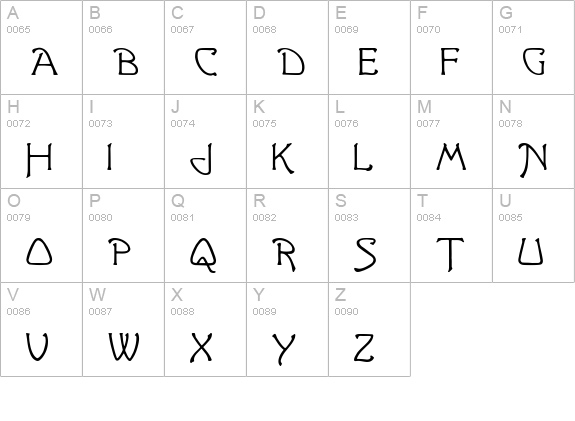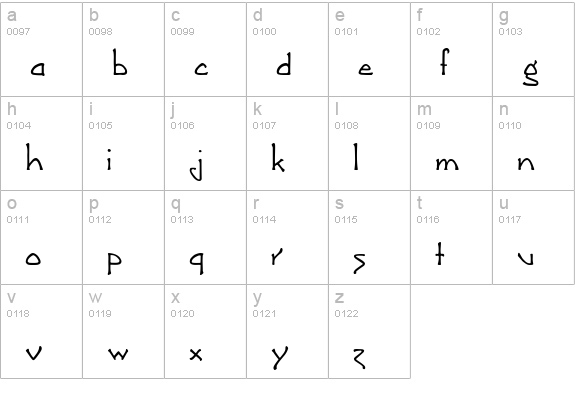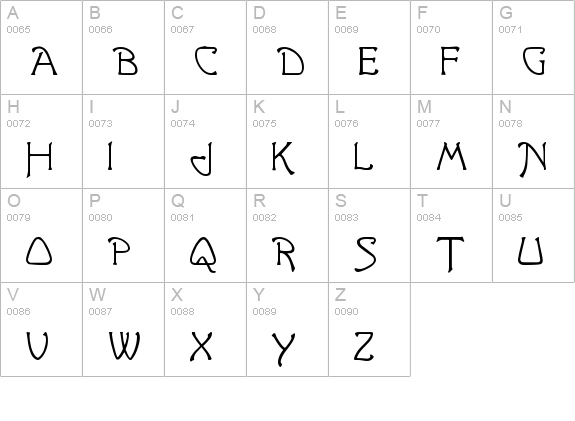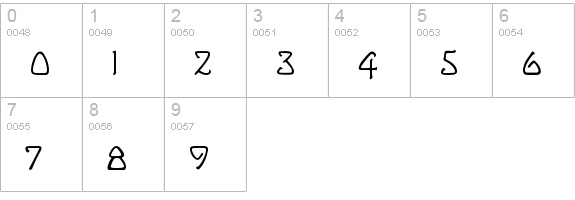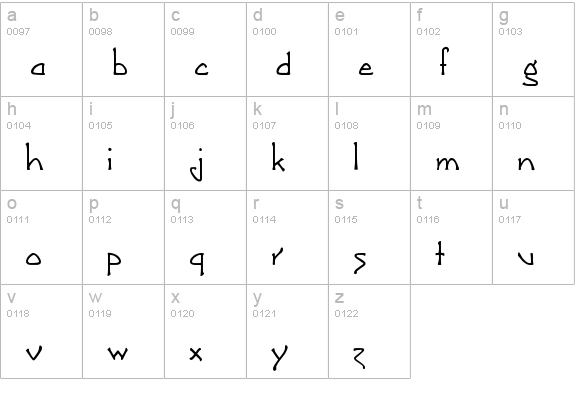
Greetings MF Font Details
Greetings MF font is a delightful and whimsical typeface that exudes charm and elegance. With its unique letterforms and playful curves, this font is perfect for adding a touch of personality to any design project. The flowing lines and intricate details of Greetings MF font make it stand out from the crowd and capture the viewer's attention. What's even better is that Greetings MF font is available for free download at FontsMarket.com! You can easily access this stunning font and enhance your creations without any cost. Whether you're working on a greeting card, invitation, or any other design project, Greetings MF font will bring a touch of magic and creativity to your work. Don't miss out on this fantastic opportunity to elevate your designs with this beautiful and versatile typeface. Download Greetings MF font today and let your creativity soar!